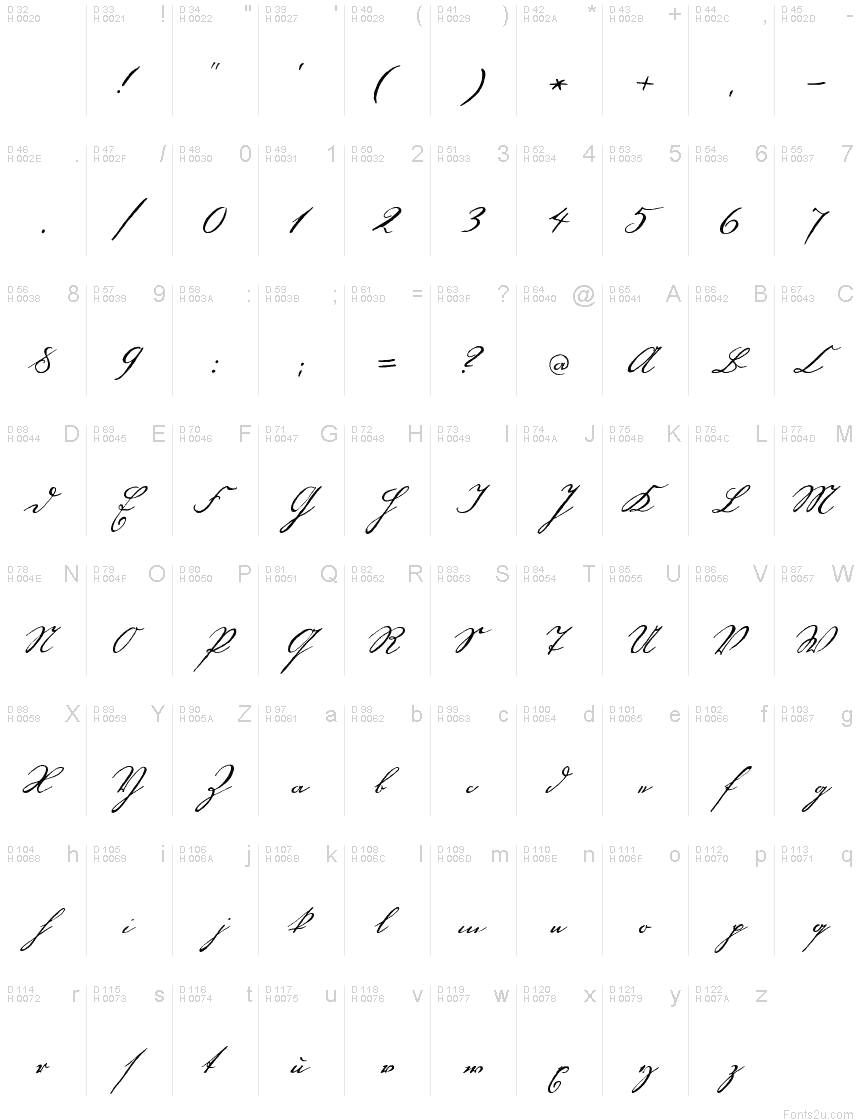
Handwriting 1800, designed by Marc 'Jantiff' Hermann, is a free calligraphic script with the sweep of formal penmanship. Fine hairlines, fuller downstrokes, and generous loops form fluid connected letters, with long flourishes lending the writing a personal signature quality.
Wedding invitations and fashion branding draw on the same elegant movement, though one feels ceremonial and the other more individual. The script also suits beauty packaging and editorial covers, where its extended strokes can become part of the surrounding ornament. It speaks to audiences drawn to romance, refinement, and the intimacy of handwritten correspondence.